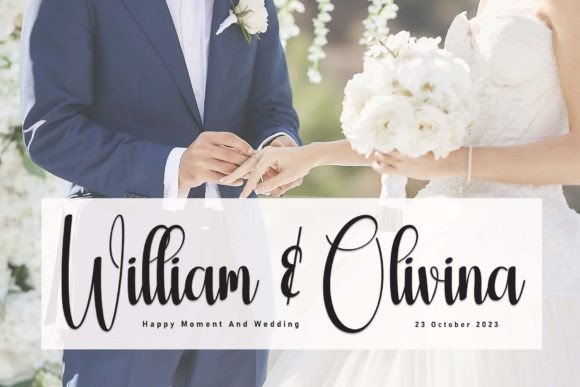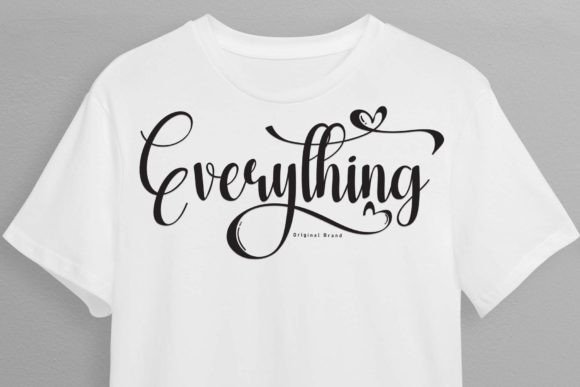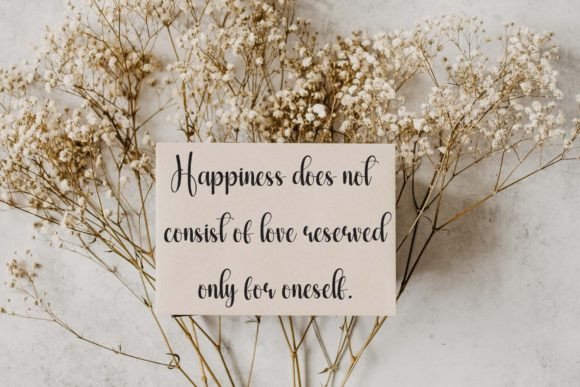
Introduction to Mistymorn Font
Mistymorn is a sweet and friendly handwritten font.
Why Choose Mistymorn Font?
Mistymorn Font offers exceptional quality and versatility, making it a valuable addition to your design toolkit. Whether you’re creating for personal projects or commercial use, Mistymorn Font delivers professional results.